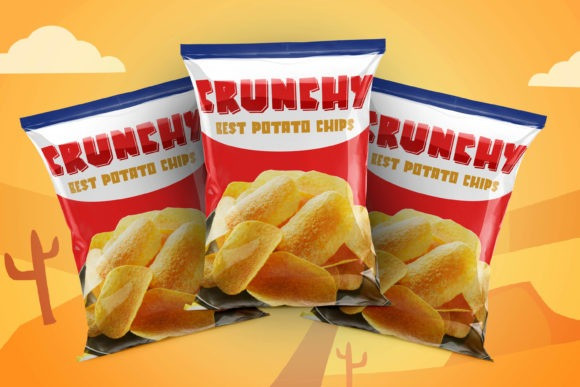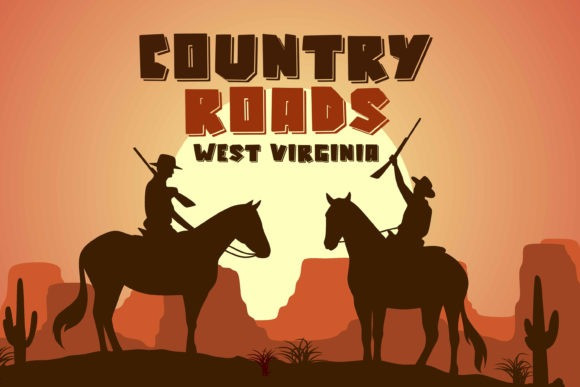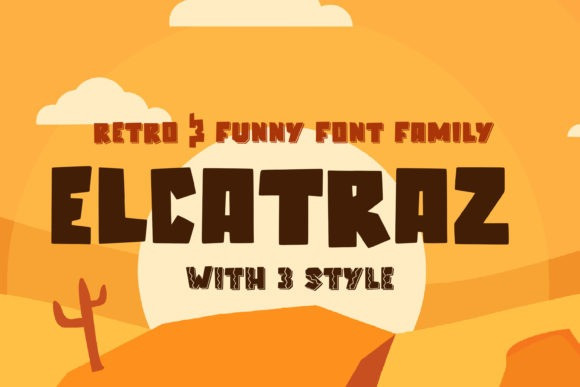
Elcatraz Display Font
Elcatraz feels playfully nostalgic and delivers an incredible vintage aesthetic. Use this display font to add that special retro touch to any design idea you can think of!